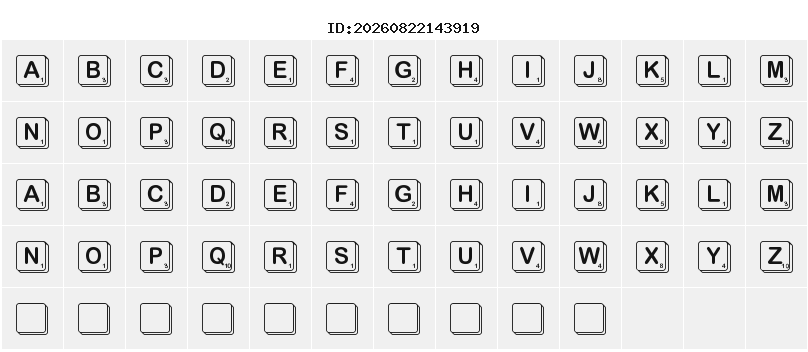
• Font Name: Scramble
About Scramble.ttf
Scramble.ttf is a modern, elegant sans-serif font designed for ultimate readability and visual harmony. Perfect for branding, headlines, web design, and print materials.